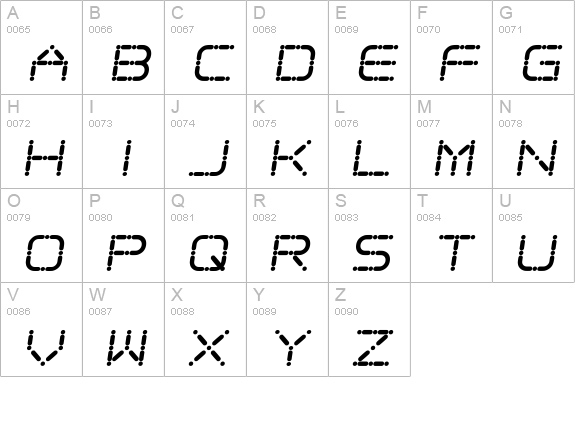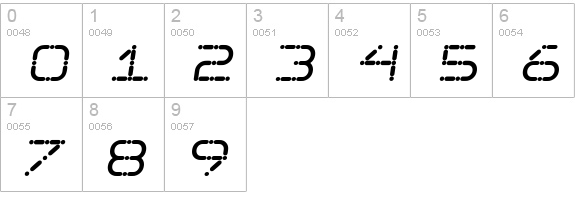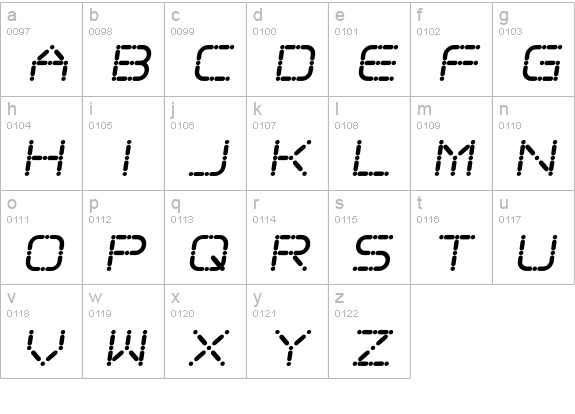
Ego trip Skew Font Details
The Ego Trip Skew font is a modern and edgy typeface that exudes confidence and creativity. Its unique skew design adds a dynamic twist to any project, making it stand out from the rest. With its bold and striking appearance, this font is perfect for eye-catching headlines, posters, logos, and more. The best part? Ego Trip Skew font is available for free download at FontsMarket.com. Take advantage of this fantastic opportunity to add a touch of personality and flair to your designs without breaking the bank. Don't miss out on this stylish and versatile font that is sure to make a statement wherever it is used. Download Ego Trip Skew font today and unleash your creative potential!